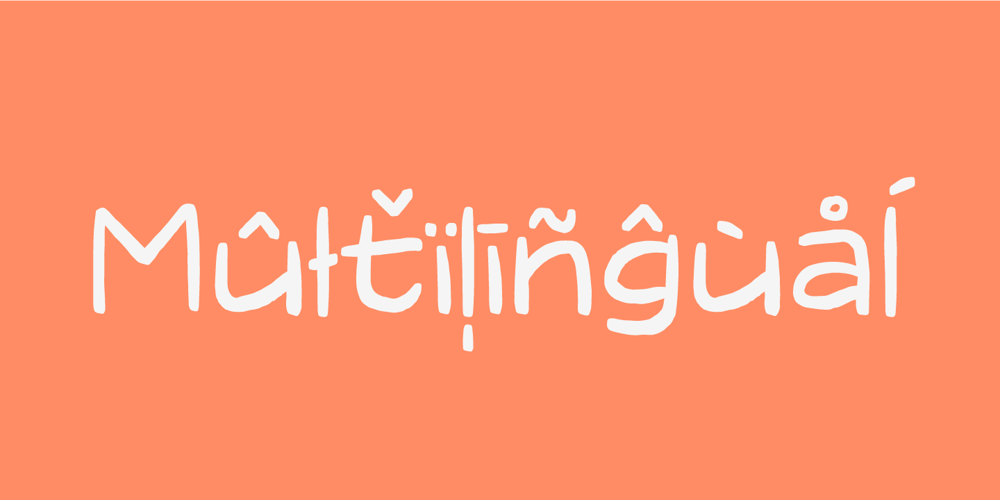
Tasty Chat
Tasty Chat font
Tasty Chat Font Family was designed by Jakob Fischer and published by PizzaDude.dk. Tasty Chat contains 3 styles and family package options. Something tasty for your design! Tasty Chat is designed to be super legible and with a natural and organic feeling to it. Besides multilingual support, the font has 4 different versions of each lowercase letter. These “contextual alternates” cycles as you type which makes the font more random and handmade looking. Add some of the doodles to your design to make it more spectacular – they were made with the same pen as the actual font, so they fit perfectly together!